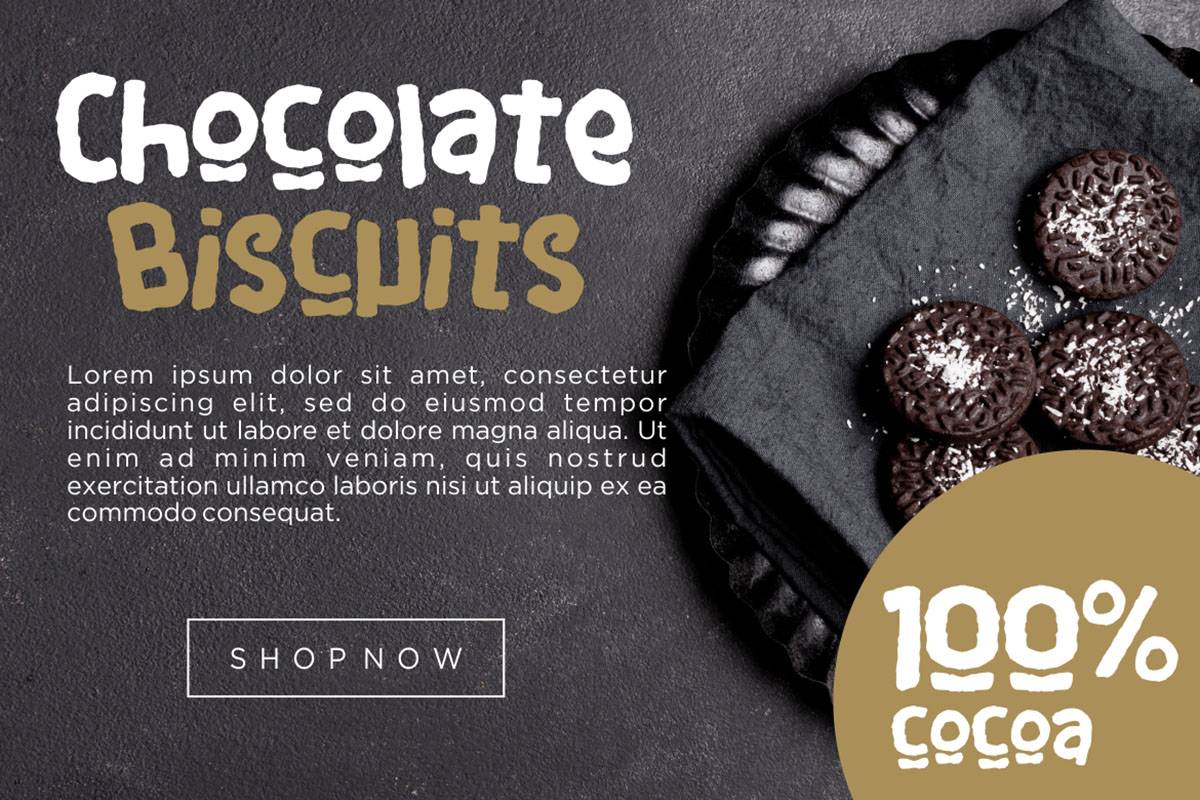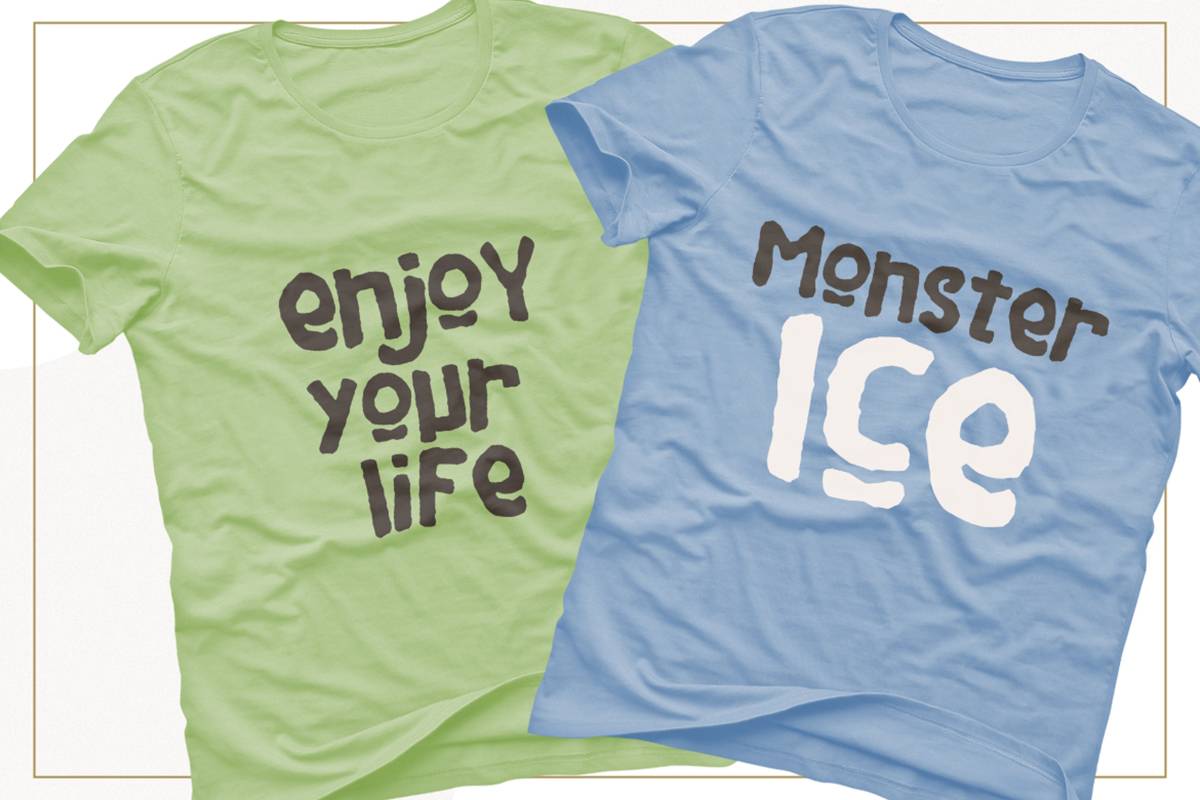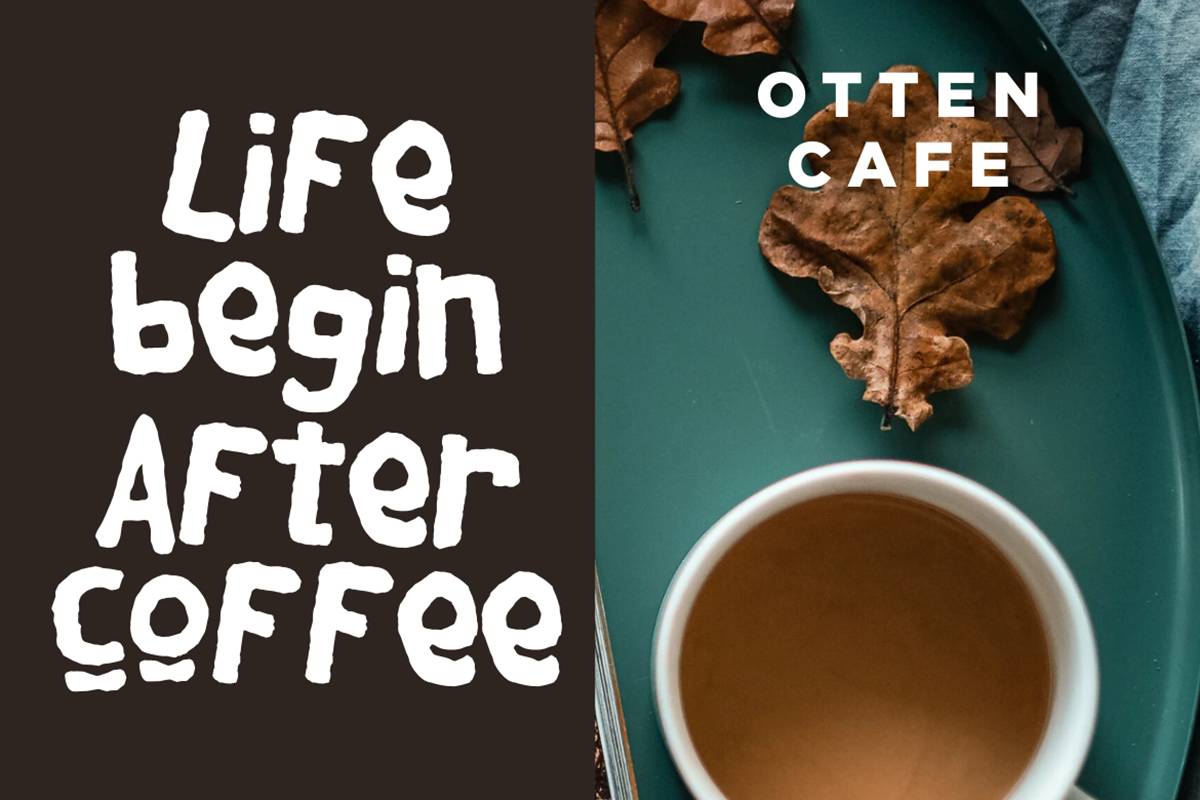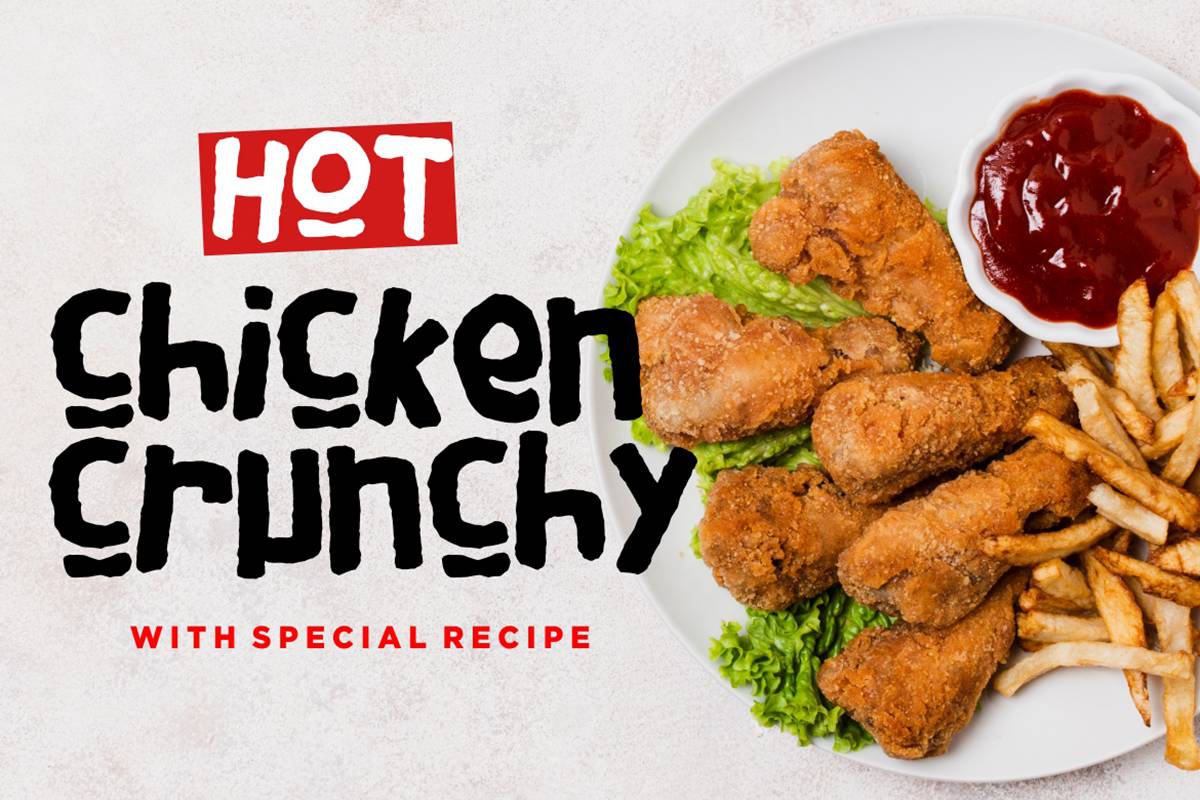
Kora Kora is a bold, playful sans serif font with a hand-drawn, slightly irregular style that gives it a casual and friendly feel. Its chunky weight and uneven strokes make it perfect for informal designs, adding personality and charm to headlines, posters, and creative branding projects. This font works well where a lively, approachable look is desired, especially in fun, artistic, or youthful contexts.
Kora Kora Font
About Kora Kora Font